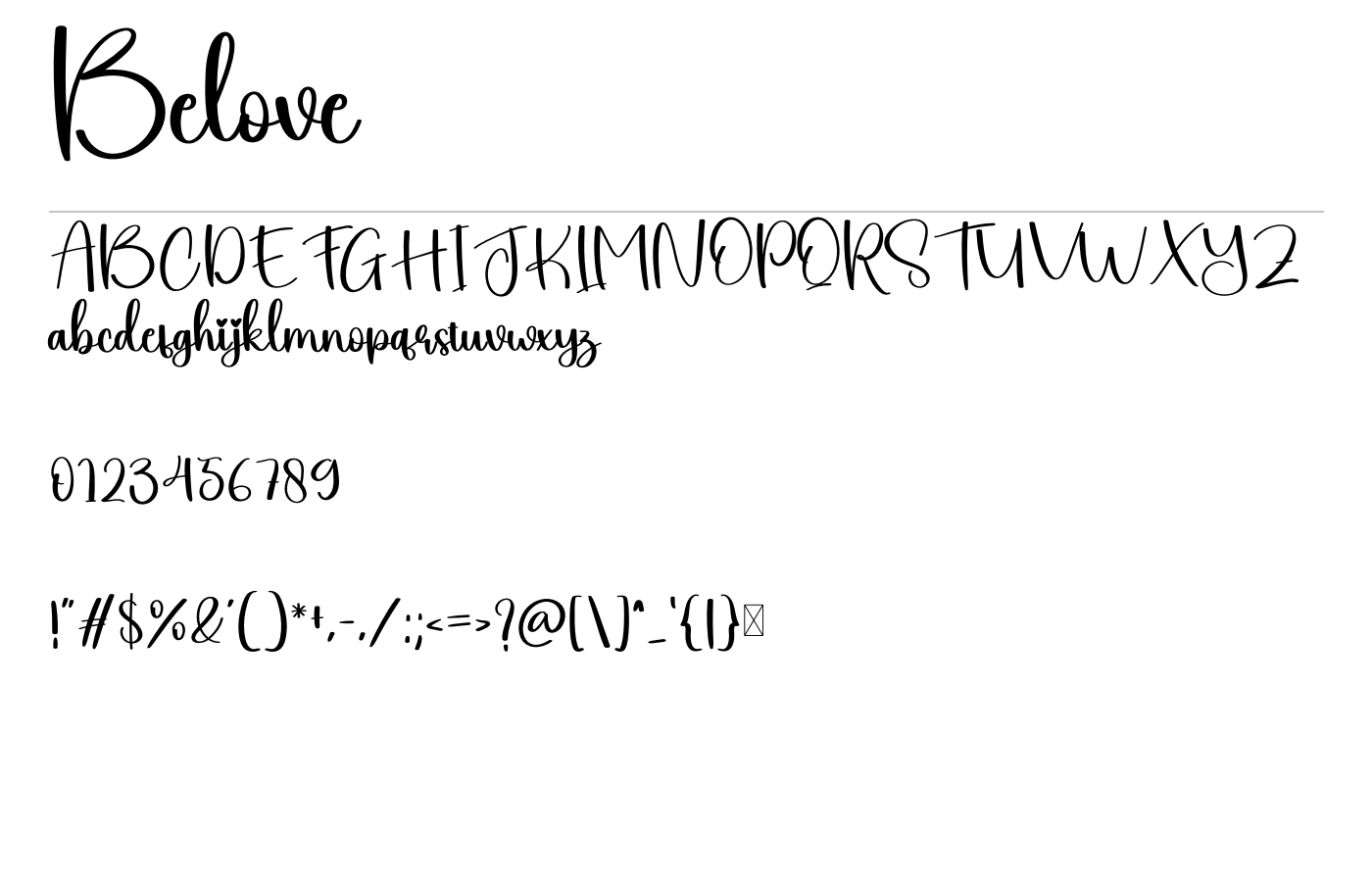
Belove is a playful and elegant handwritten script font characterized by its tall, slender letterforms and smooth, flowing strokes. Its delicate, slightly whimsical style makes it perfect for creative projects like invitations, branding, and casual headlines where a personal, friendly touch is desired. This font balances readability with charm, making it ideal for adding a warm, approachable feel to your designs.
Belove Font
About Belove Font